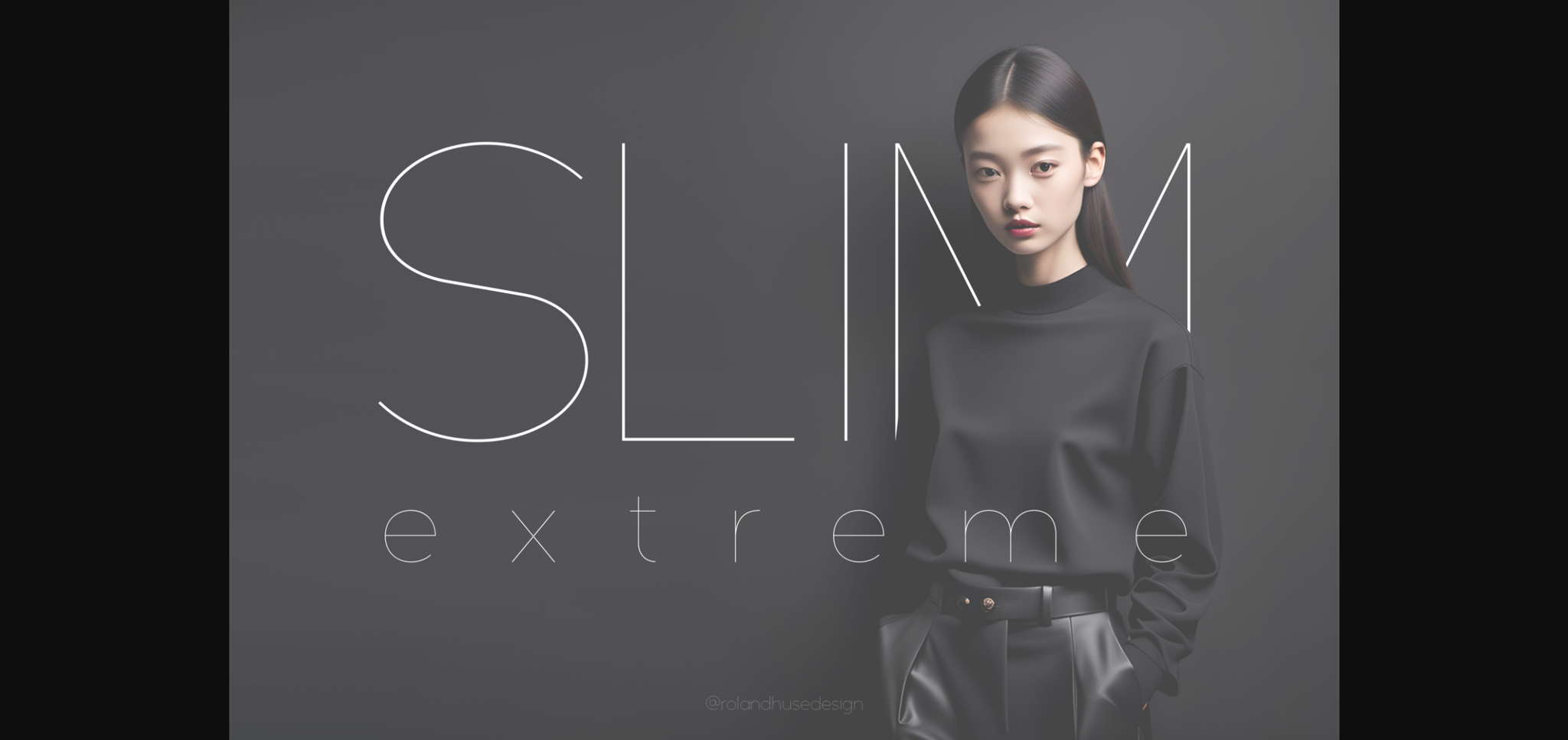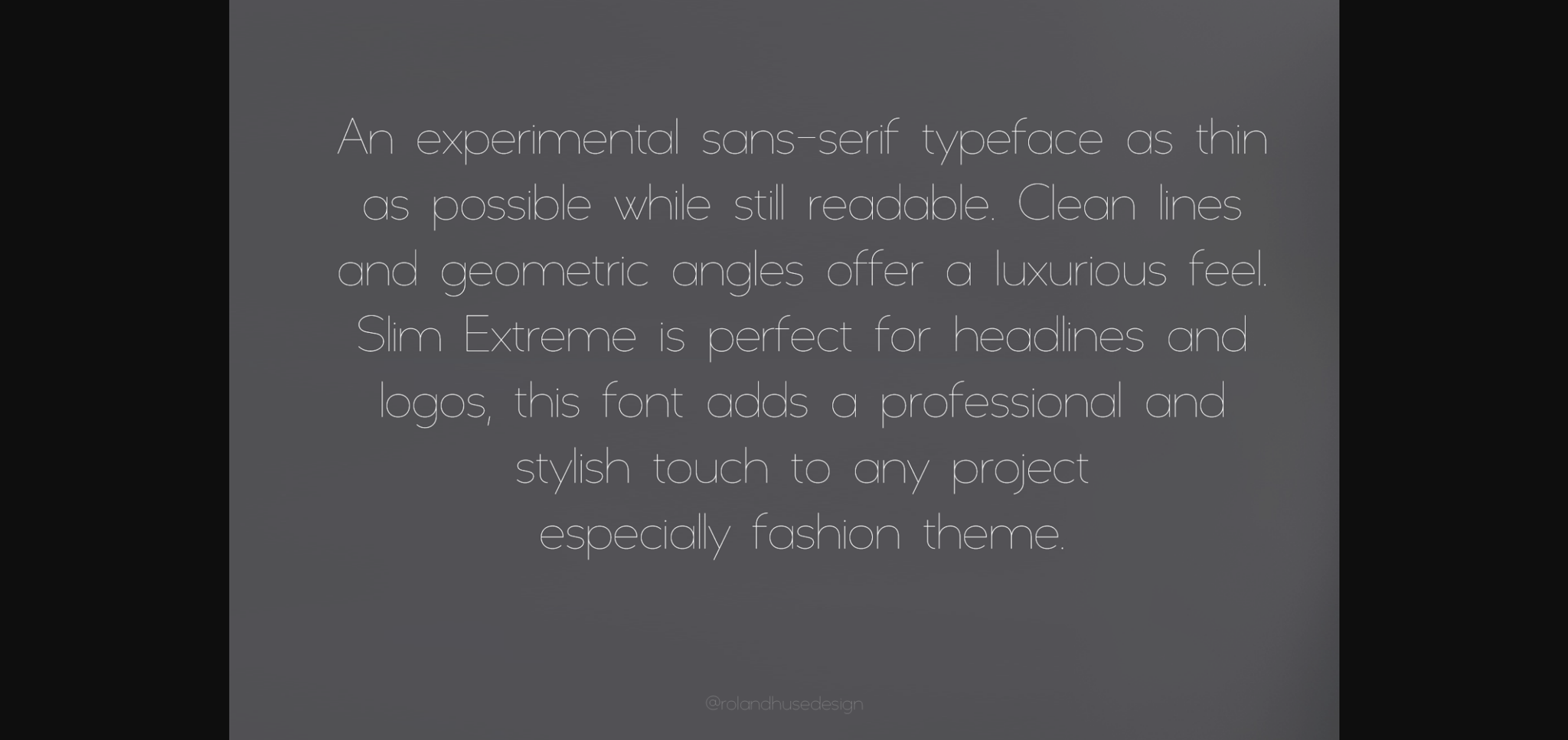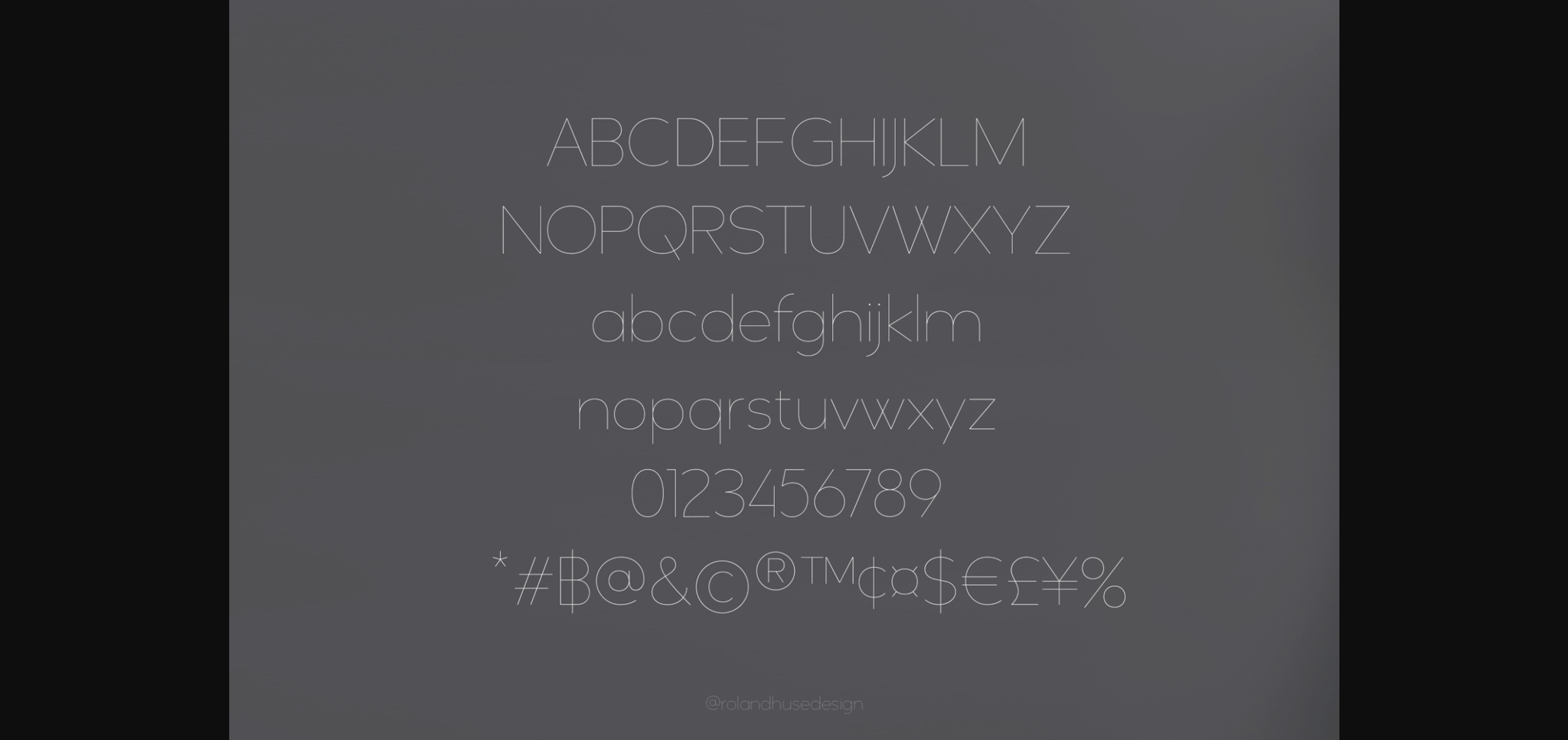
About Slim Extreme Font
Slim Extreme is a sans-serif experimental typeface as thin as possible while still readable. Clean lines and geometric angles offer a luxurious feel.
It is perfect for headlines and logos, this font adds a professional and stylish touch to any project, especially a fashion design.